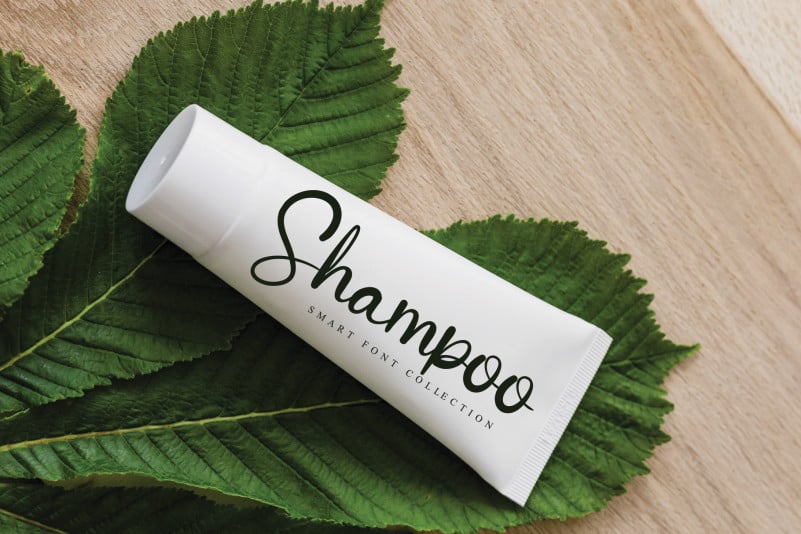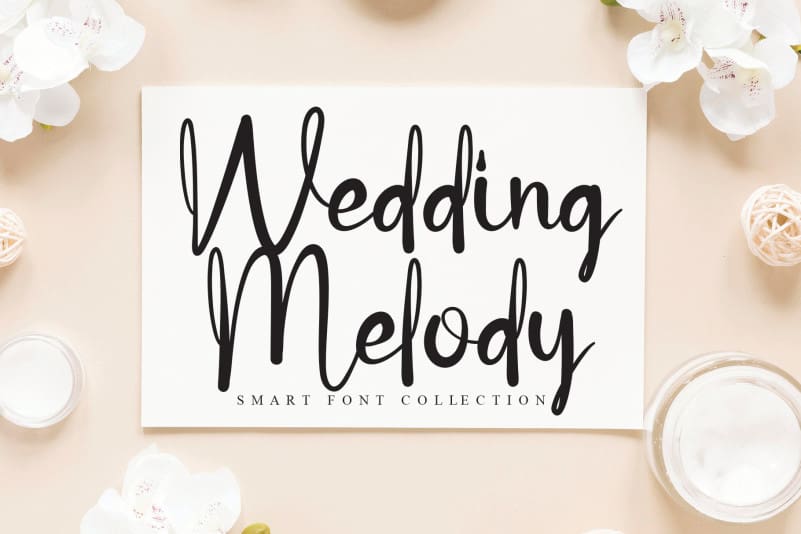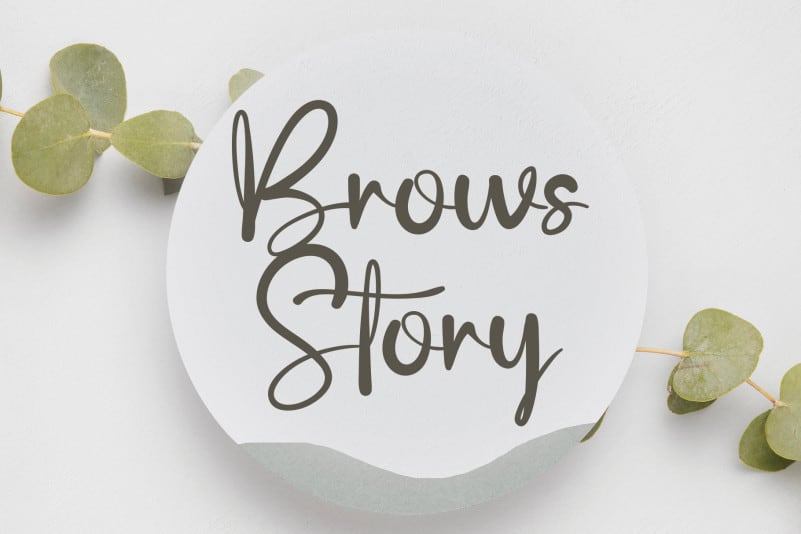
Wedding Excellent Script Font
Introducing Wedding Excellent Script Font – The latest style letters are perfect for wall displays, wedding invitations, social media post logos, advertisements, product packaging, product designs, labels, photography, watermarks, invitations, stationery,and any project that requires taste handwriting.